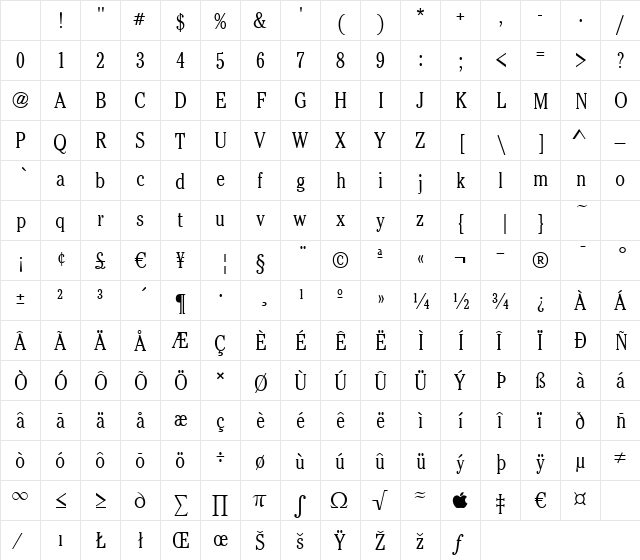
Complete CheltenhamCondLH Light glyph index. Displaying only characters natively supported by CheltenhamCondLH Light font.
CheltenhamCondLH is a composed and adaptable typeface that performs quietly and consistently across a wide range of design contexts. Its slender proportions lend an understated elegance to any composition. Its narrow stance lets it pack a punch even in space-constrained designs.